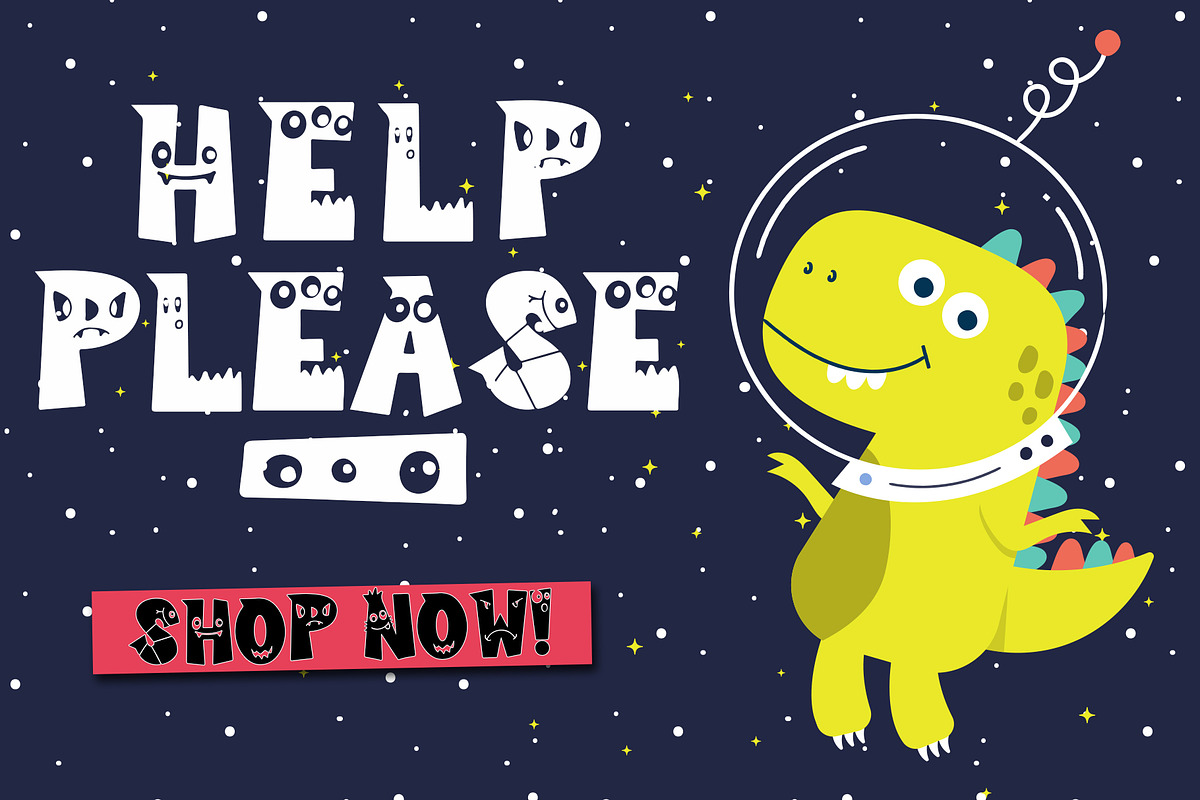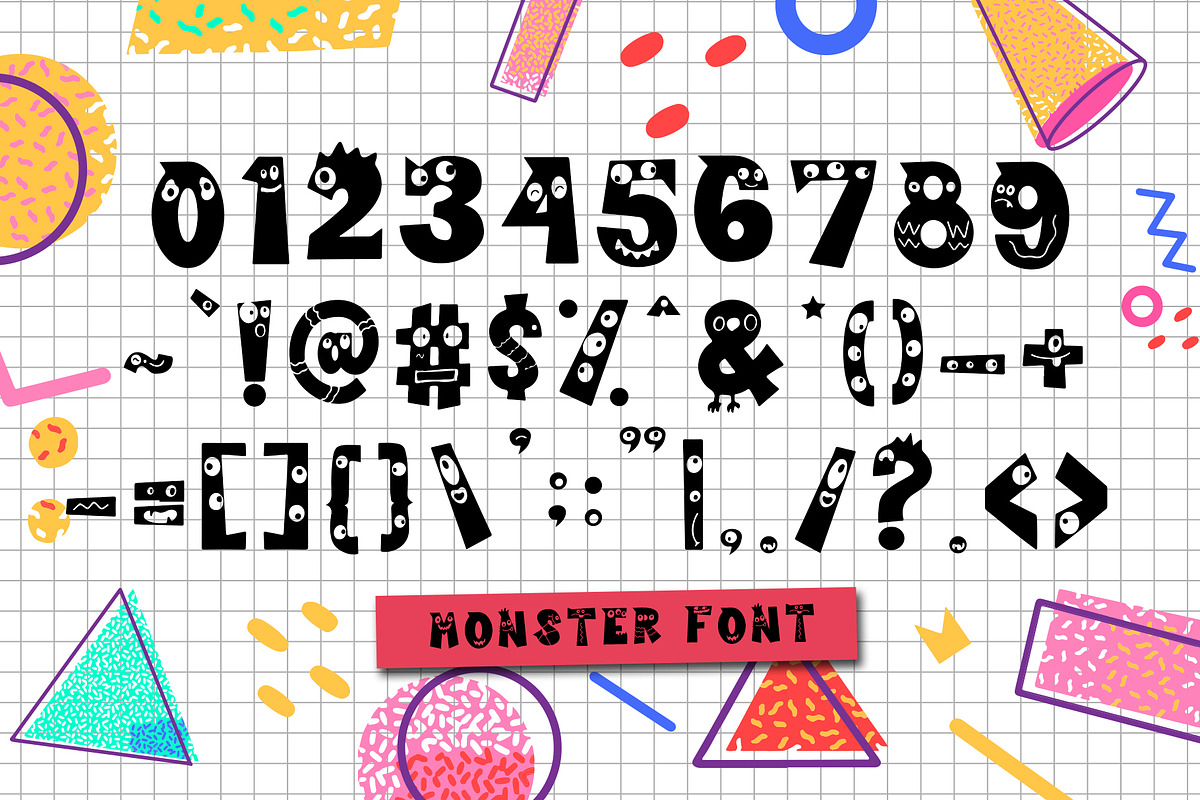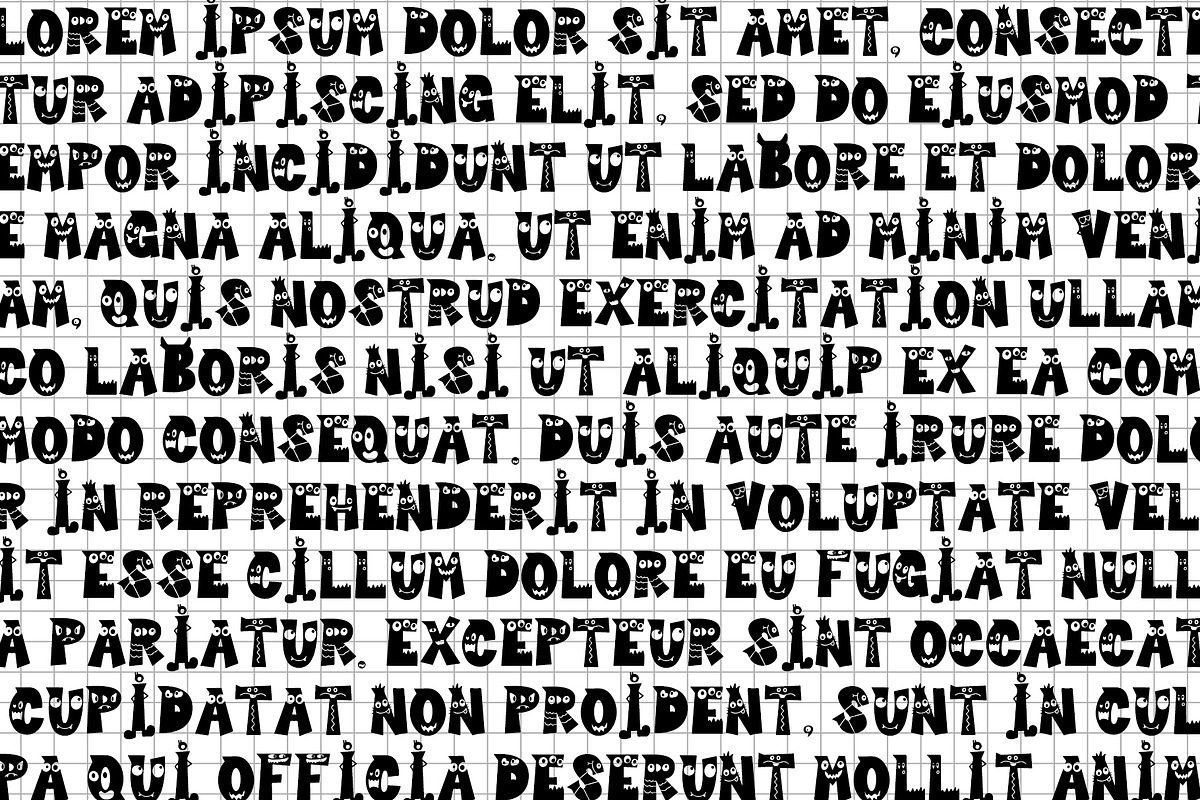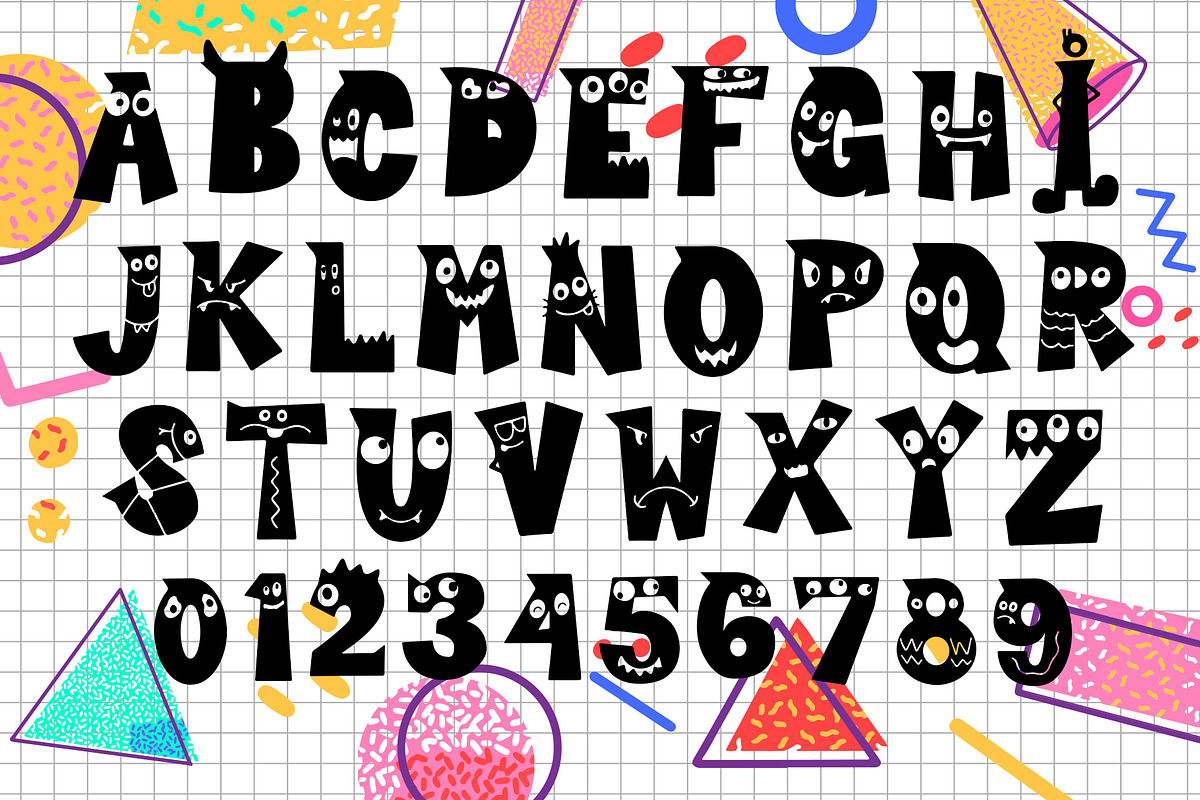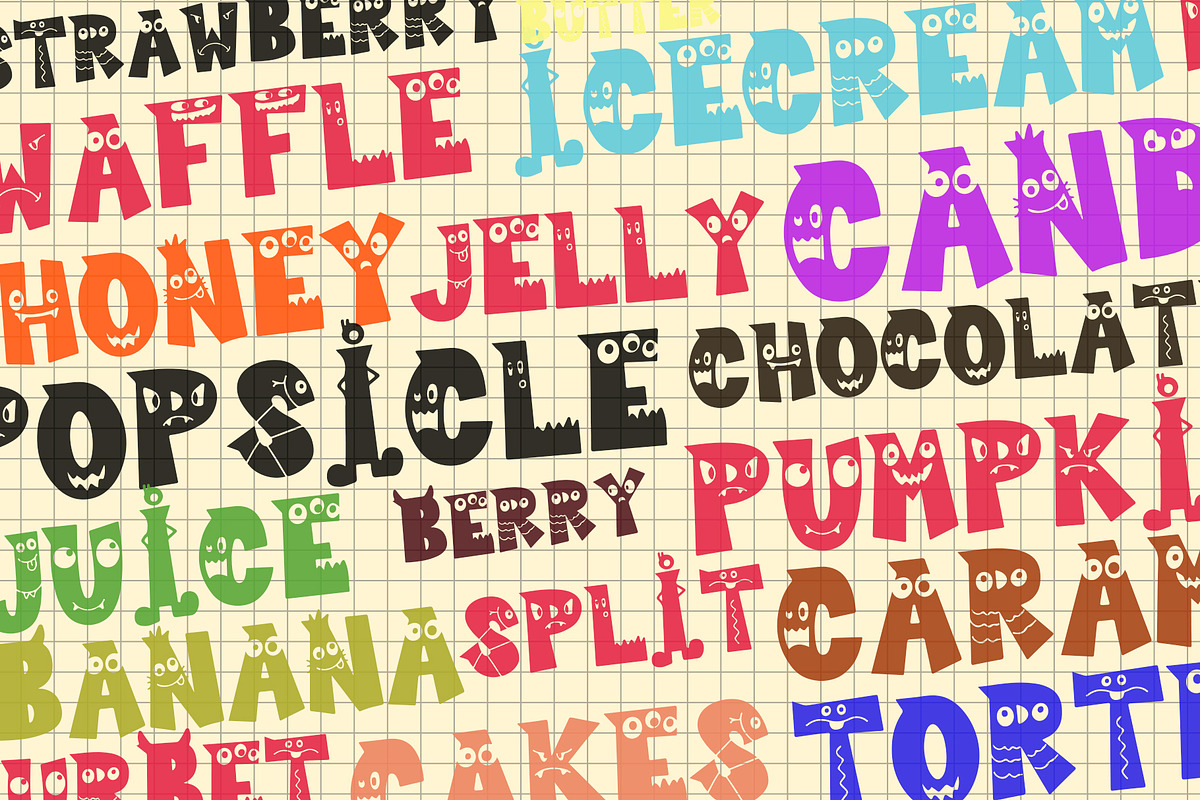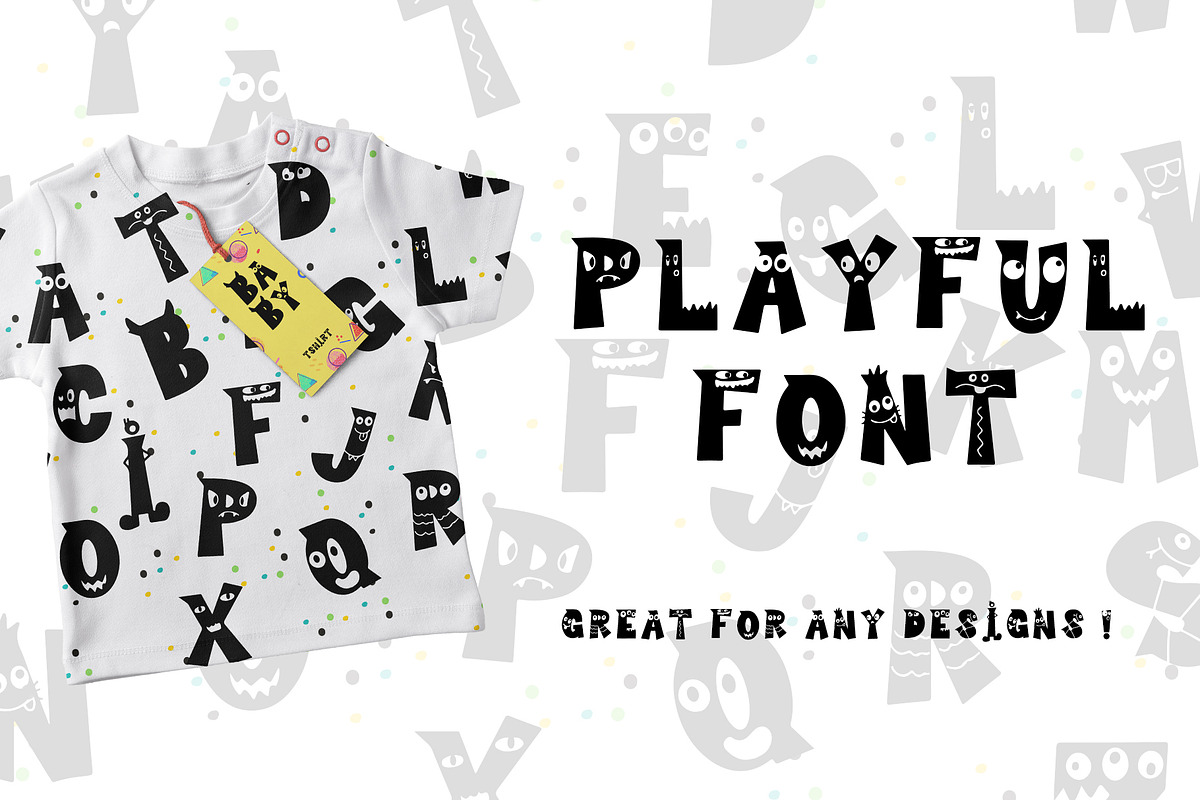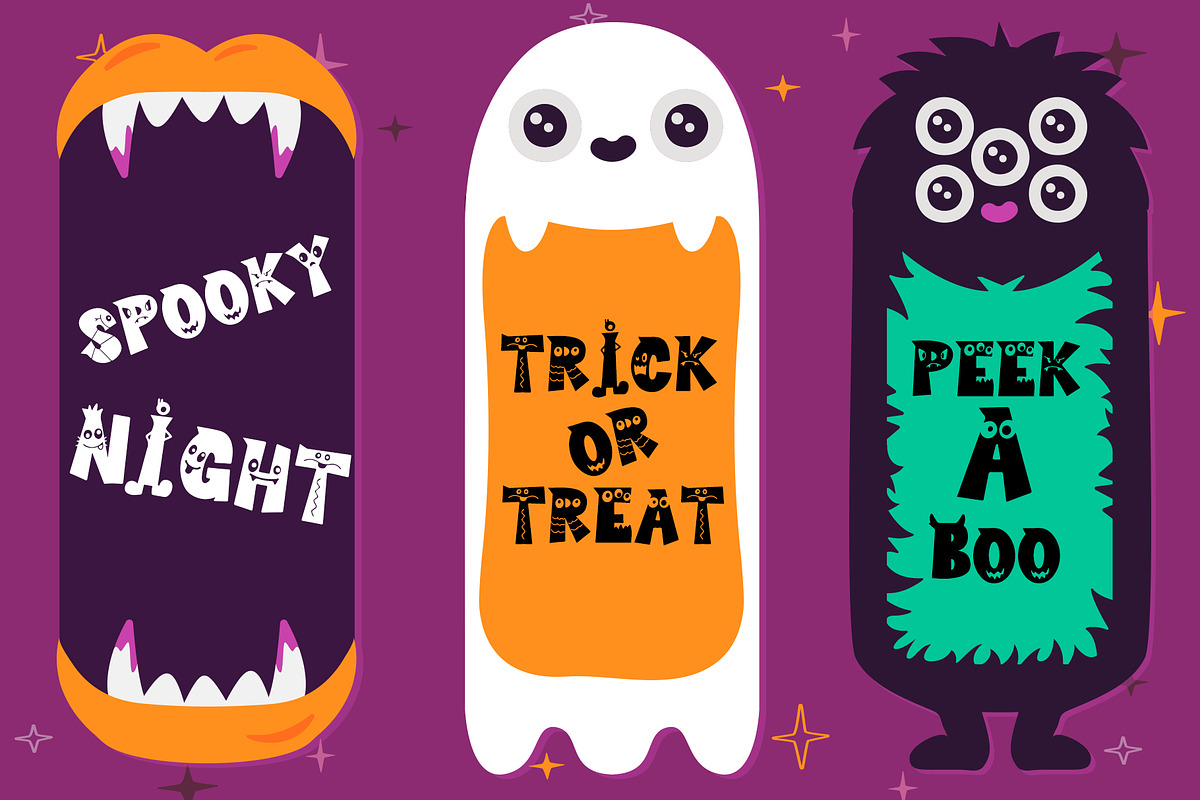
Cutie Monster - Monster Font
Introducing this cute, fun, playful and expressive monster font! Great for any designs, for party card making, banner, children stuffs, wallpaper design, crafting design, promotion stuffs and much more! Easy to use, no need additional software, exclusively made just for you!
- uppercase
- lowercase
- numeric
- symbols